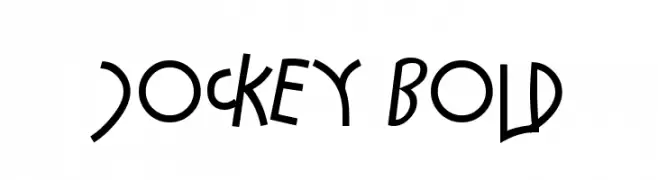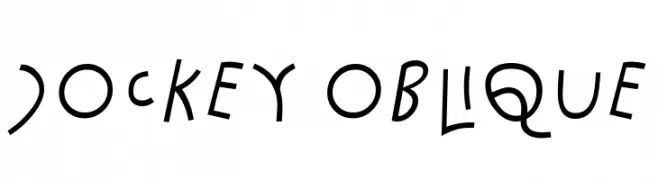
A bold, flowing script font with a modern and elegant style.
A playful, hand-drawn font with a whimsical and casual style.
An elegant script font with flowing, cursive lines and sophisticated style.
A playful, rounded font with a hand-drawn, friendly appearance.
A bold, geometric font with a modern, futuristic style.
A bold, condensed typeface with tight spacing and strong visual impact.
A bold, mechanical font with interconnected circular elements and a futuristic style.
A bold, mechanical-themed decorative font with circular cutouts and connecting lines.
A bold, geometric font with sharp angles and a futuristic style.
A dynamic cursive font with a fluid, elegant style.
A bold, distressed font with a rugged, textured appearance.
A bold, hand-drawn font with an energetic and artistic style.
A bold, handwritten-style font with dynamic and playful characteristics.
A bold, modern sans-serif font with excellent legibility and balance.
A bold, italicized sans-serif font with a modern and dynamic style.
A modern, italic sans-serif font with smooth curves and consistent stroke width.
A clean, modern sans-serif font with a light weight and excellent legibility.
A modern, light, and condensed sans-serif font with clean lines and uniform stroke width.
A sleek, modern, light, and condensed italic font with tight spacing.
A modern, light, and italic font with smooth strokes and balanced proportions.
A clean, modern sans-serif font with uniform strokes and excellent readability.
A modern, geometric font with artistic and futuristic elements.
A playful and whimsical script font with a handwritten style.
A playful and artistic script font with flowing, cursive letterforms.
A lively script font with fluid, continuous strokes and a personal touch.
A bold, geometric outline font with a modern, industrial look.
A bold, geometric, and condensed font ideal for impactful headlines.
A geometric, angular font with consistent stroke width and a modern aesthetic.
A modern, geometric font with thin, rounded lines and a minimalist style.
A bold, heavy, and condensed font with rounded edges and a modern, industrial feel.
A lively, cursive handwritten font with expressive, flowing letterforms.